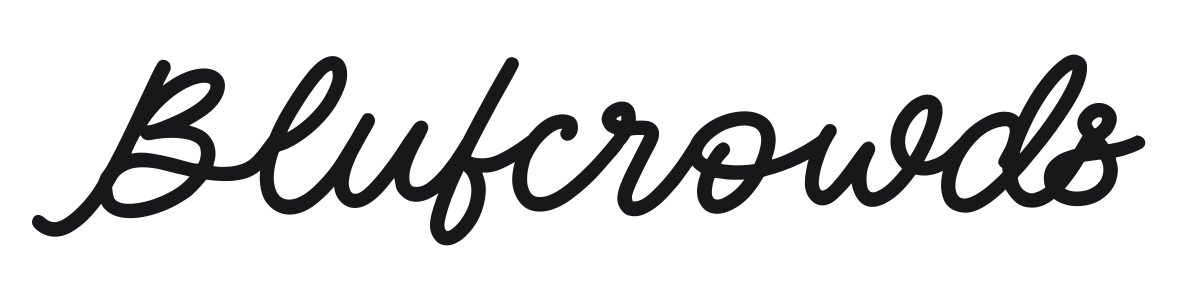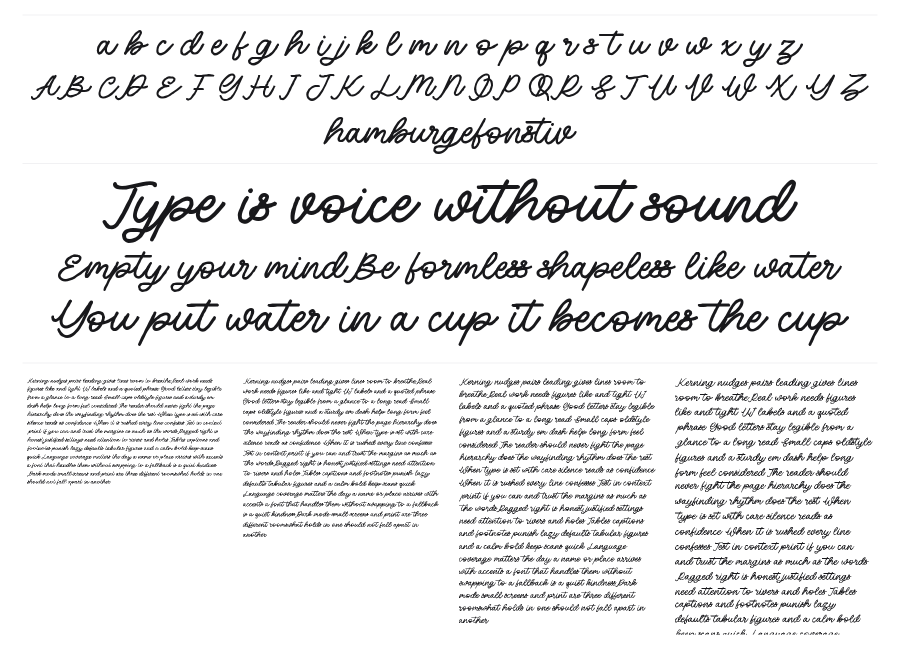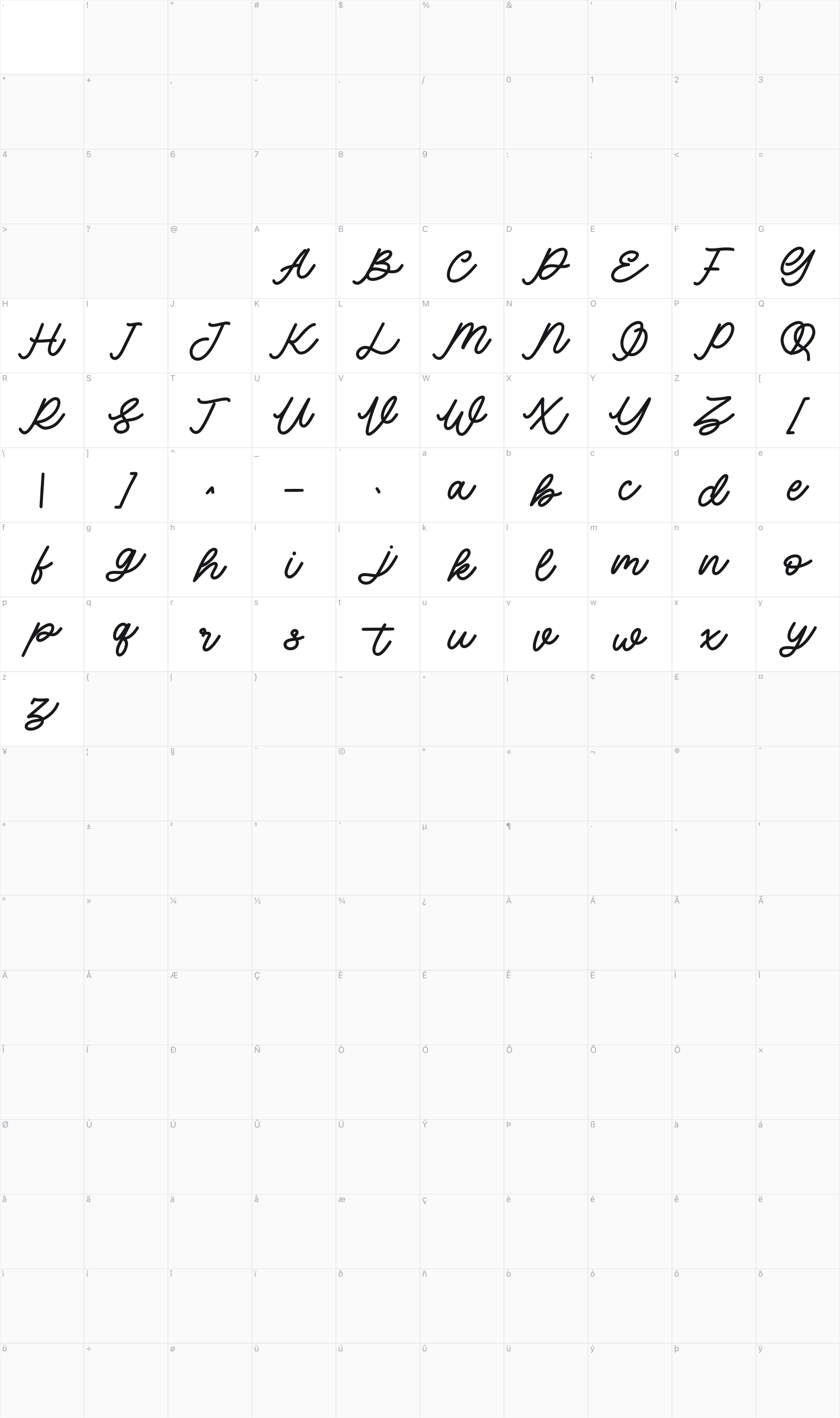
Blufcrowds
Blufcrowds is a casual connected script with smooth, flowing strokes and a natural hand-lettered rhythm. The near-monoweight construction and rounded terminals keep it feeling warm and approachable without veering into formal calligraphy territory. It carries a relaxed mid-century energy that works well across branding, packaging, and editorial headlines.